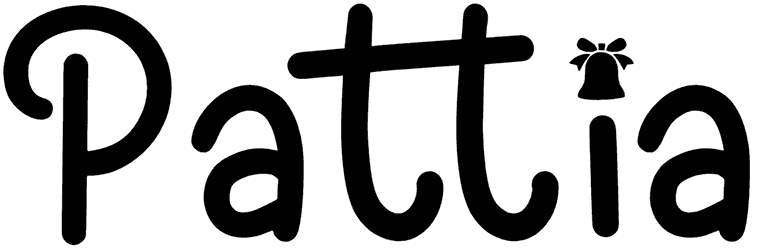
Pattia Font
While finding a suitable font would take you a lot of time and energy, a lovely script font such as Pattia can be your savior and boost the visibility of your creative ideas, including gift cards, illustrations, magazines, wood engravings, or street posters.
This marvelous Christmas font comes with rounded and delicate characters. Needless to say, it leads to a vibe of dynamic, vitality, or momentum.